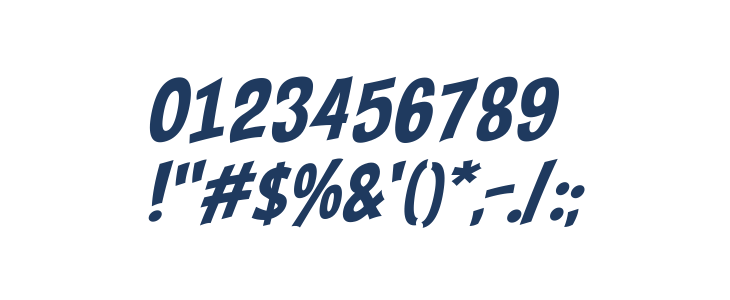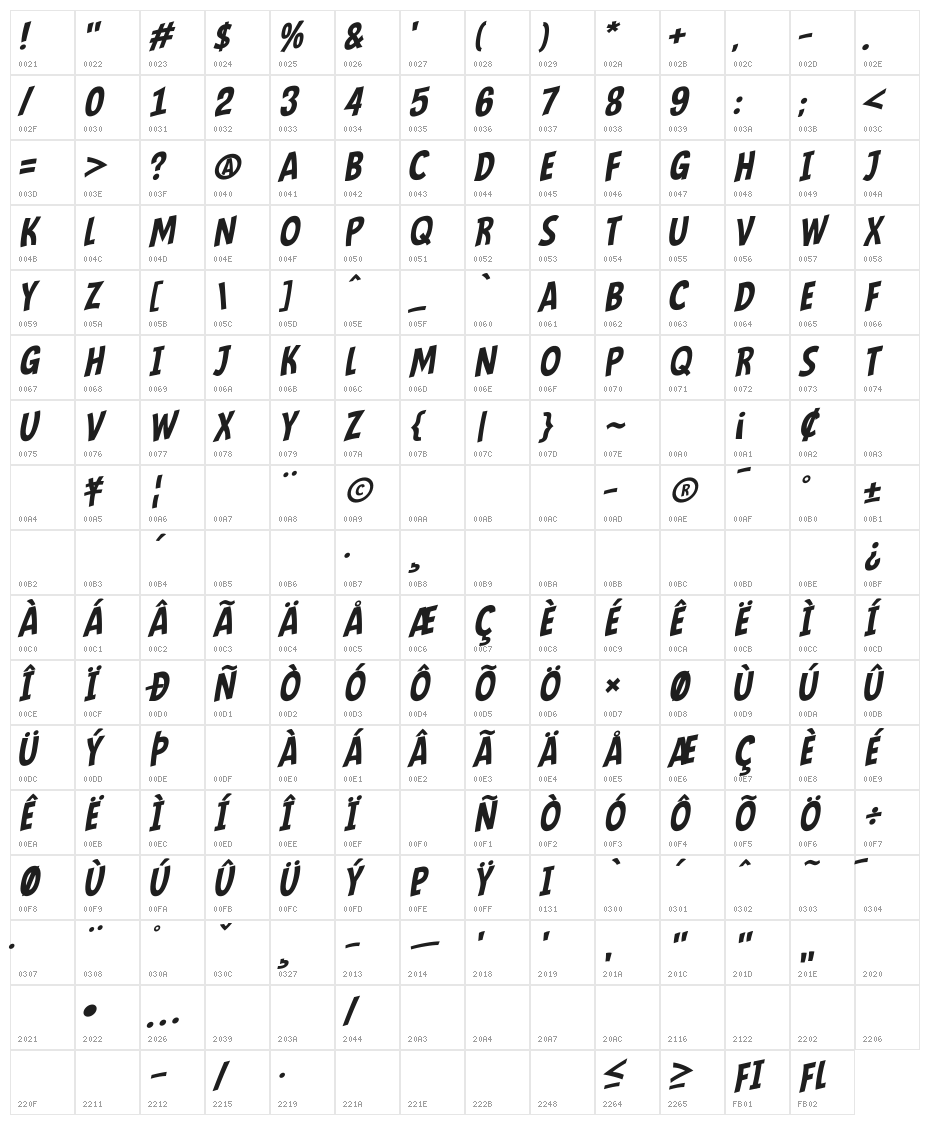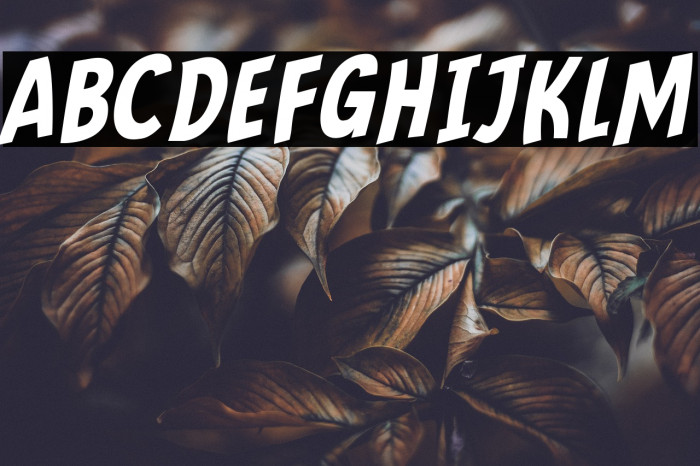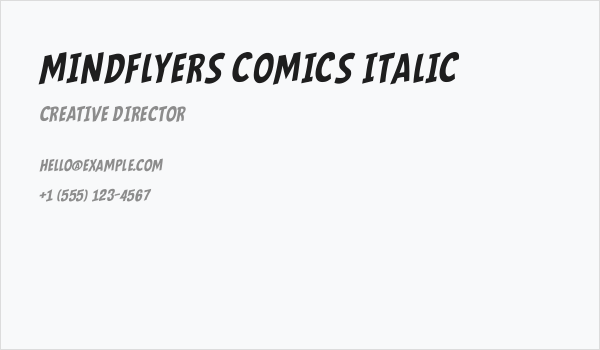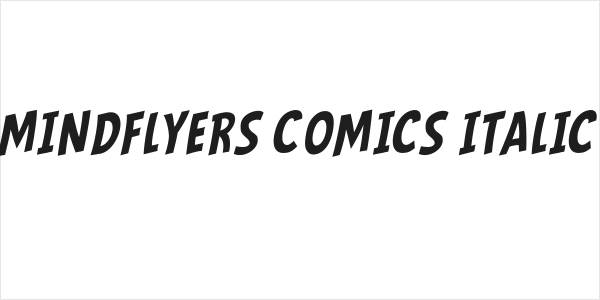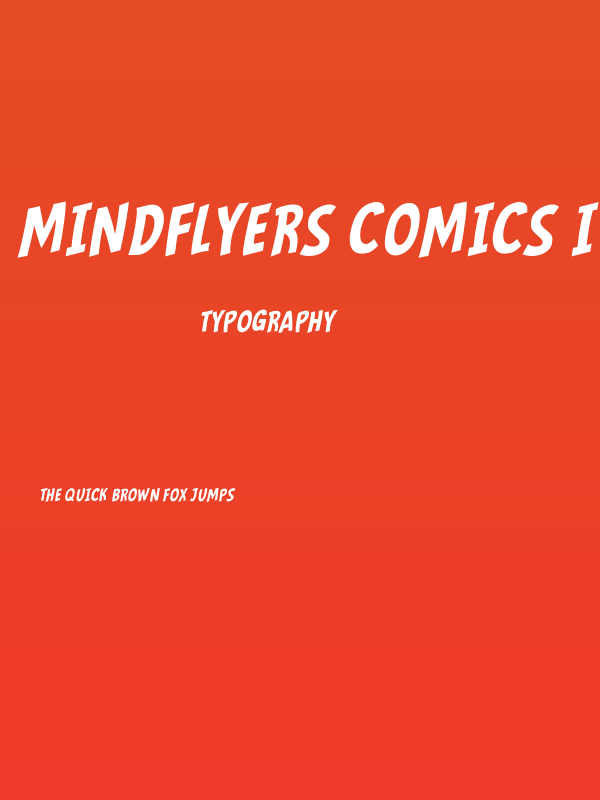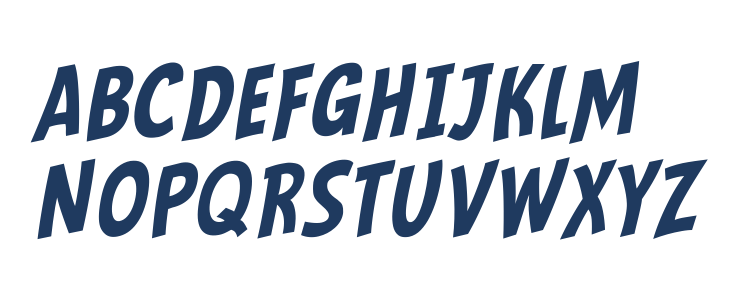
Mindflyers Comics Italic Font
Mindflyers Comics Italic Description
This font exudes a playful and dynamic energy, characterized by its bold and italicized style. The letters are slightly slanted, giving a sense of motion and liveliness. Each character is robust and well-defined, with a consistent stroke width that maintains readability while adding a touch of flair. The font's design is reminiscent of comic book lettering, making it ideal for projects that require a fun and engaging aesthetic. The spacing between characters is balanced, ensuring clarity and legibility even at smaller sizes. Its unique style makes it stand out, perfect for capturing attention.
| Overall Style | Playful, Comic |
| Proposed Projects | Ideal for comic books, children's books, playful branding, and eye-catching headlines. |